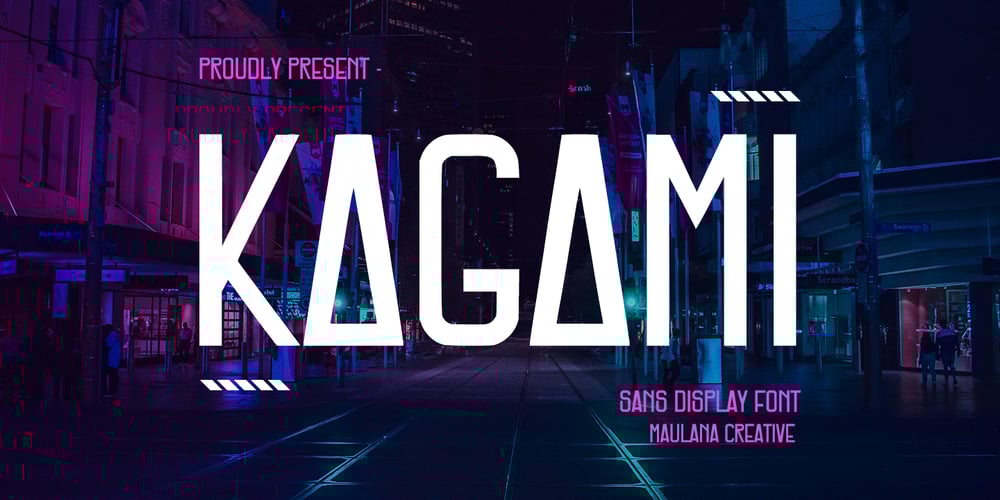
MC Kagami Font Family was designed by Gilang Maulana and published by Maulana Creative. MC Kagami contains 1 styles and family package options. Kagami is a modern sans serif display font. With bold condensed stroke and fun character. To give you an extra creative work, Kagami font support multilingual more than 100+ language. This font is good for logo design, Social media, Movie Titles, Books Titles, a short text even a long text letter and good for your secondary text font with signature or script typeface. Make a stunning work with Kagami font.Cheers,Maulana Creative